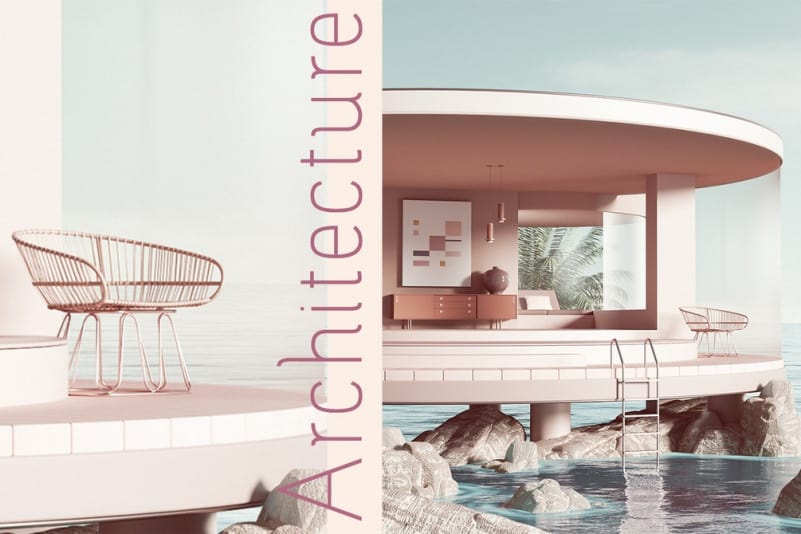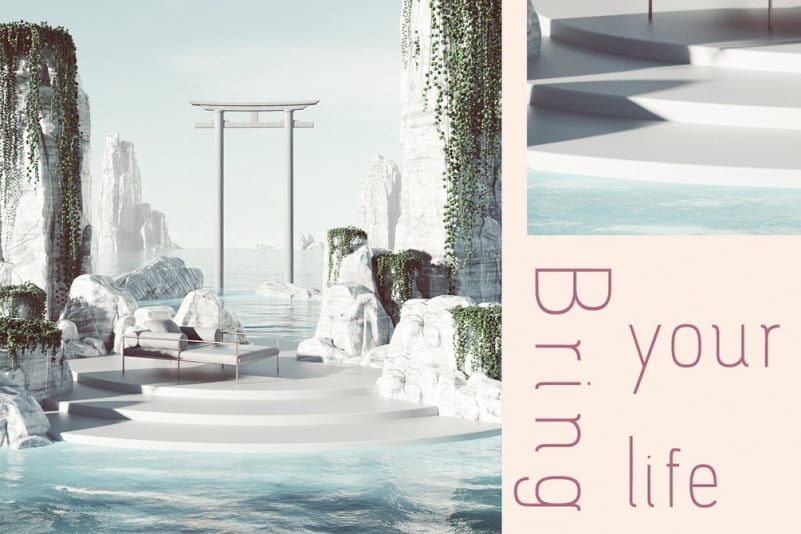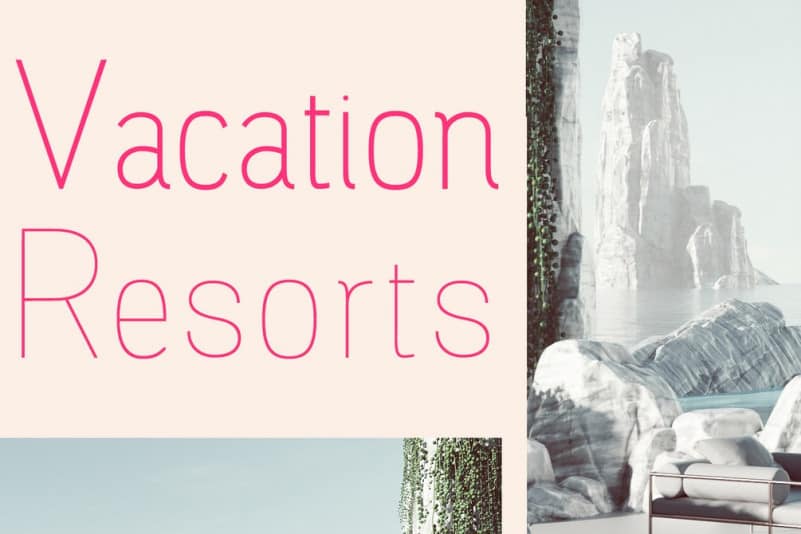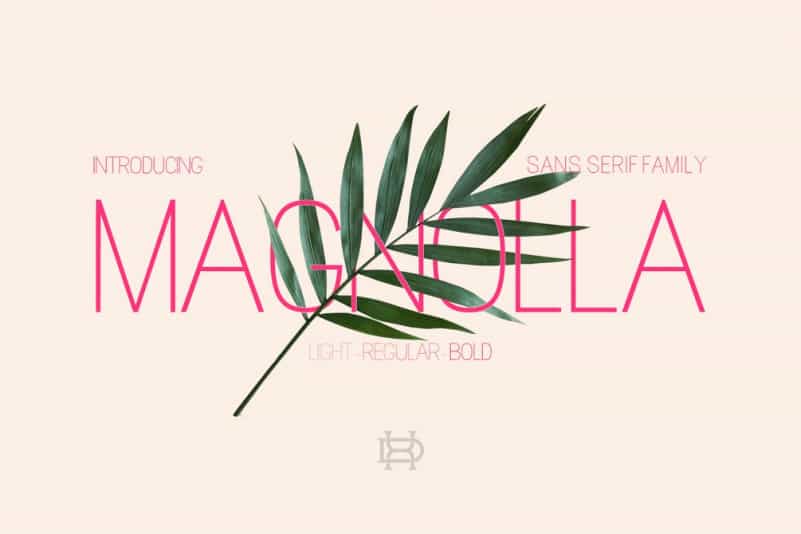
Magnolla Sans Serif Font
Magnolla Sans Serif Font may look familiar but has a modern and fresh feel, giving your designs a friendly, and at the same time, renewed and singular appearance. This typeface is designed and shared by dxsign. It’s an elegant and clean sans serif font. It’s a versatile font family designed for strong, modern branding. Magnolla Sans Serif Font is perfect for any branding, logos, magazines, videos, weddings, quotes, print, product packaging, website, clothing designs and much more.